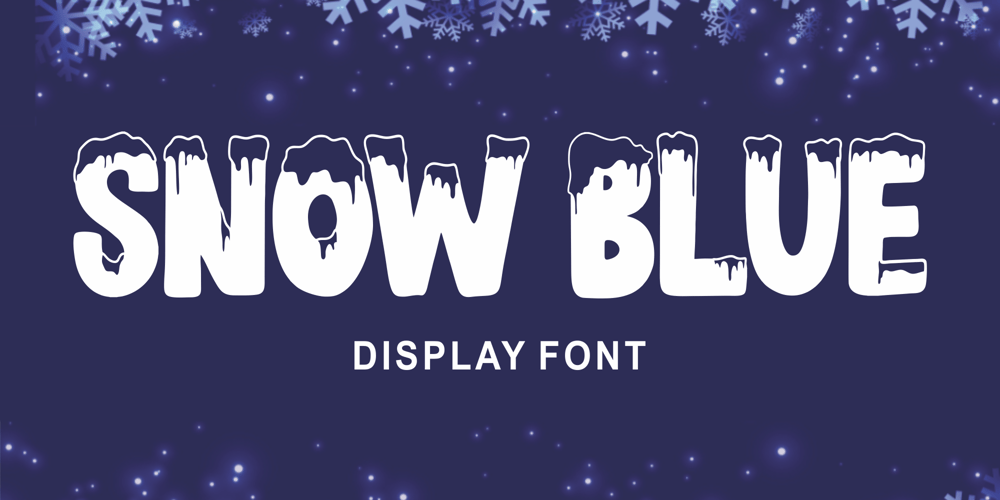
Snow Blue Font Family was designed by Su Wondo and published by Girinesia. Snow Blue contains 1 styles and family package options. Hello guys…We proudly presenting our new font.It’s name SNOW BLUE.SNOW BLUE is modern display font. SNOW BLUE is a bold decorative font perfect for your celebration party like Halloween, Chrismast or New Year.SNOW BLUE would perfect for Titles for kid`s book, scrapbook, logo, icon, phrases or quotes for winter greeting cards ( Halloween, Christmas or New Year holidays), photo overlay, short phrases, children’s book, gift shops tag, presentation in social media Pinterest, Instagram, Facebook or others.